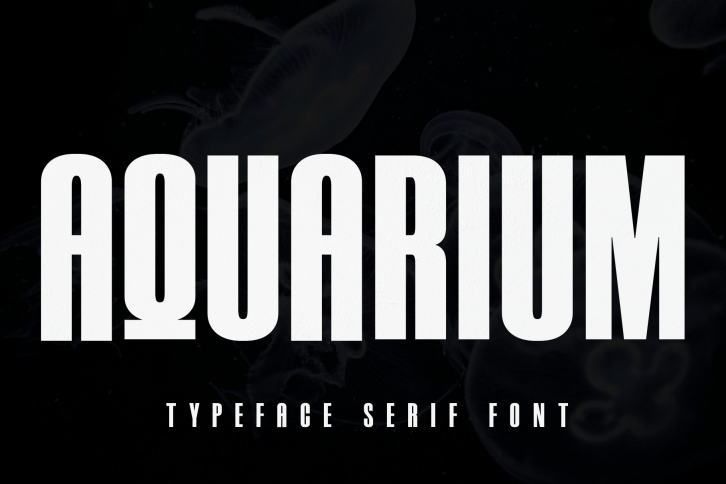
AQUARIUM is a gorgeous font that was realeased on October 9, 2020. The font can be used in many style contexts and design environments. Perfect for invitations, magazines, websites, logos, and more! It was designed by creativewhitee and the file size is 6.46 MB. Thanks for checking out this font!